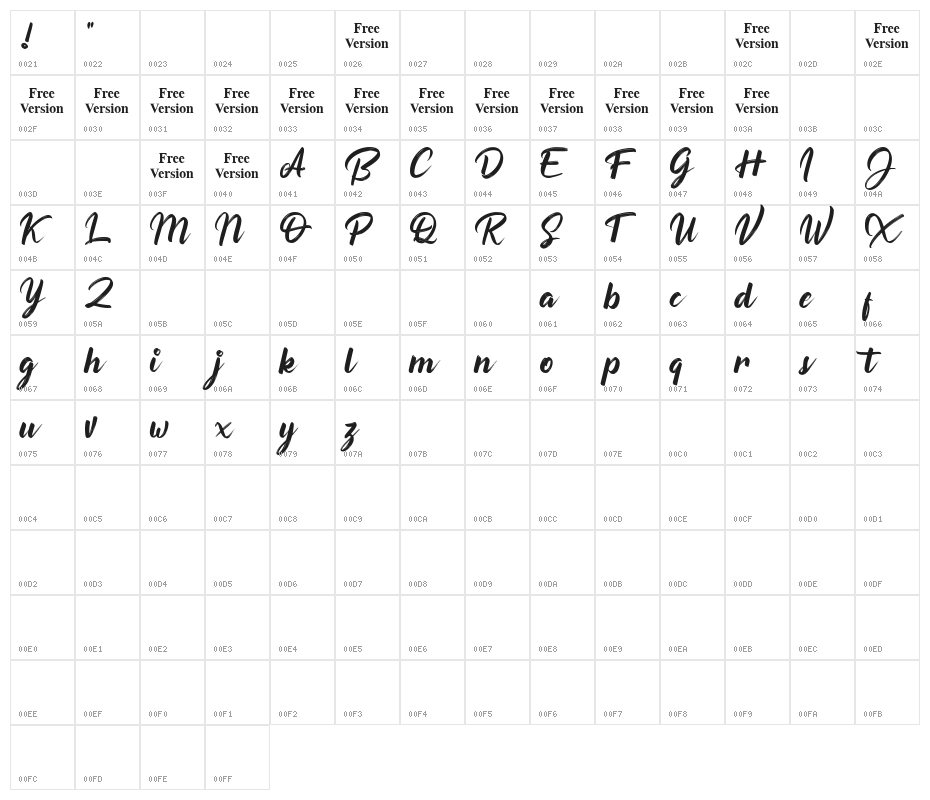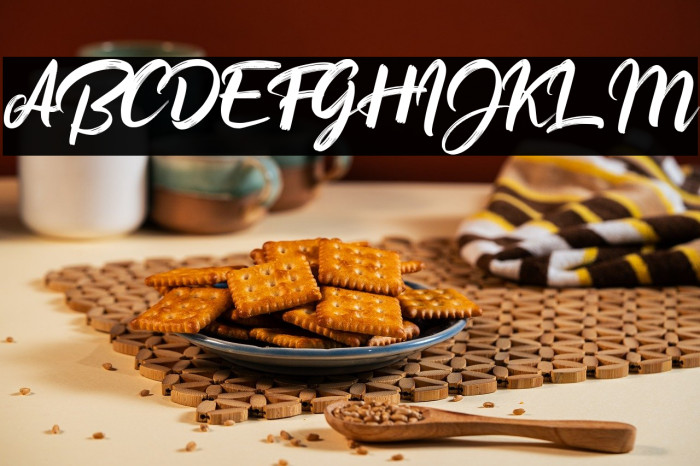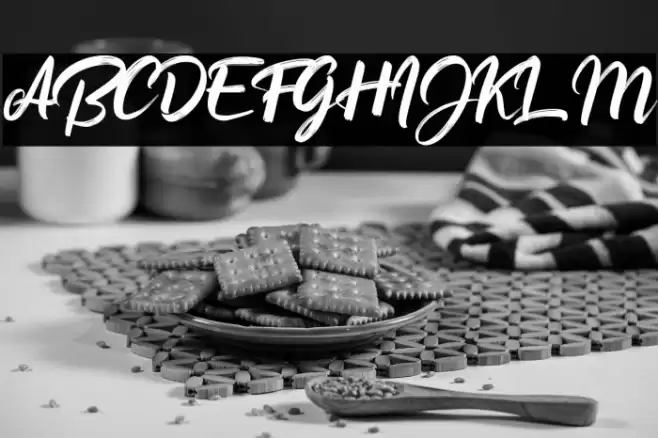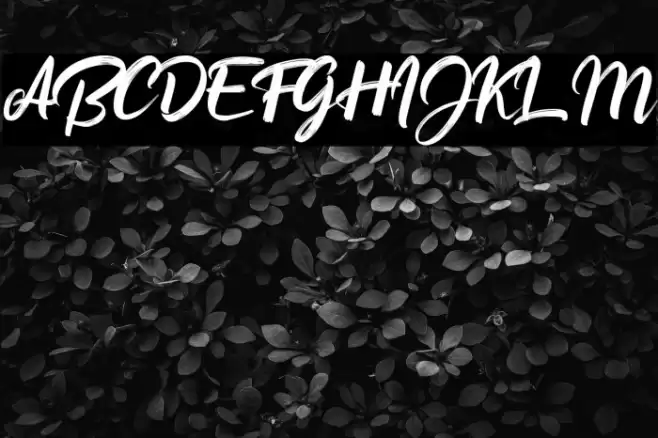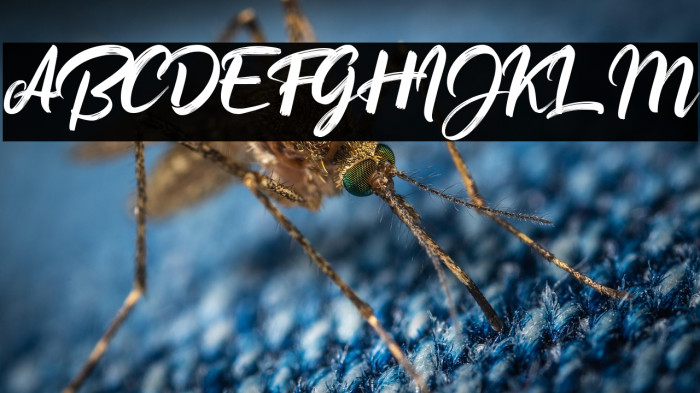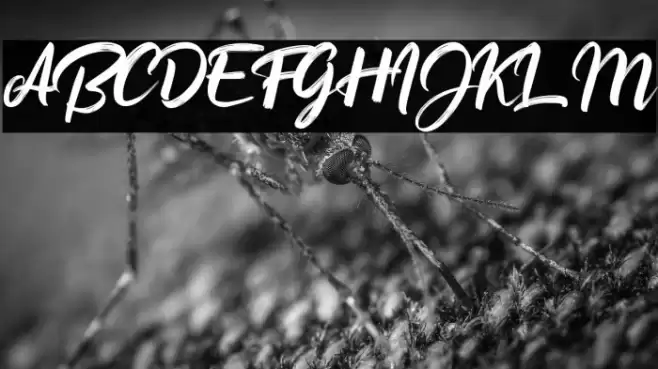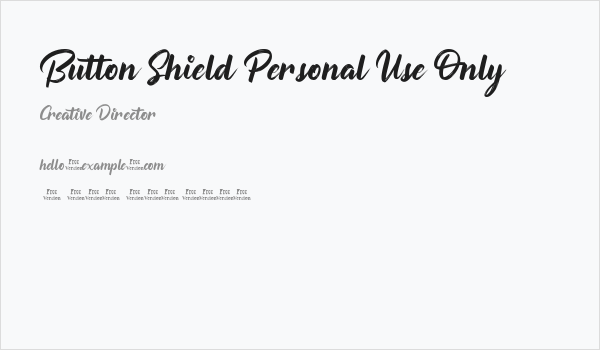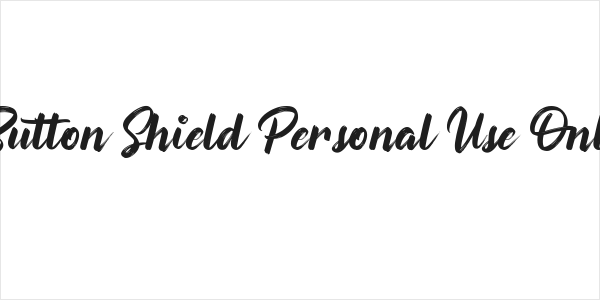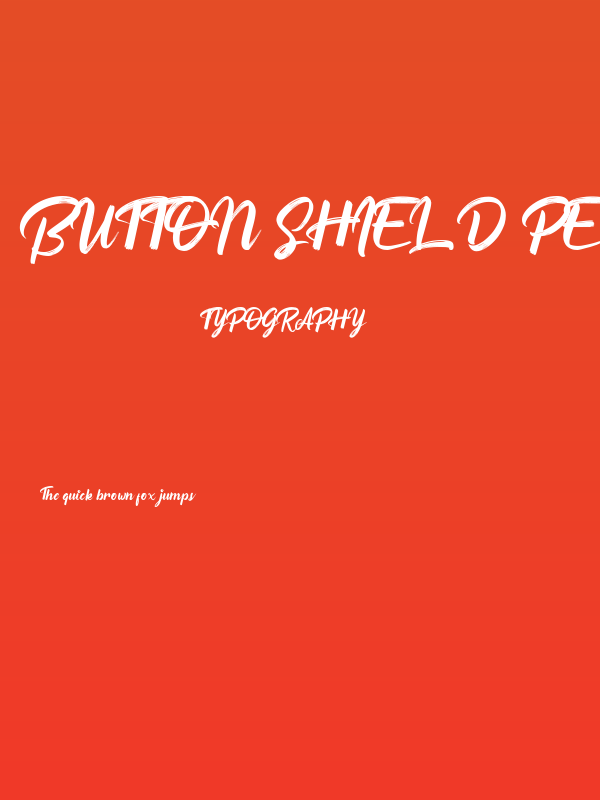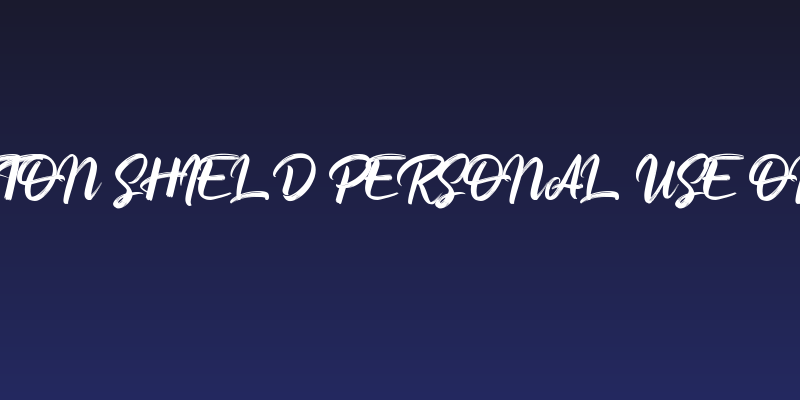
Button Shield Personal Use Only Font
Button Shield Personal Use Only Description
This font features a bold, expressive script style with a handwritten feel. The letters are connected, creating a fluid and dynamic appearance. The strokes are thick and vary in width, adding a sense of movement and energy. The uppercase letters are slightly larger and more prominent, while the lowercase letters maintain a consistent flow. The font includes a full set of uppercase and lowercase letters, numbers, and a selection of special characters. The overall design is modern and artistic, making it suitable for creative and eye-catching projects.
| Proposed Projects | Ideal for branding, logos, invitations, and creative design projects that require a personal touch. |